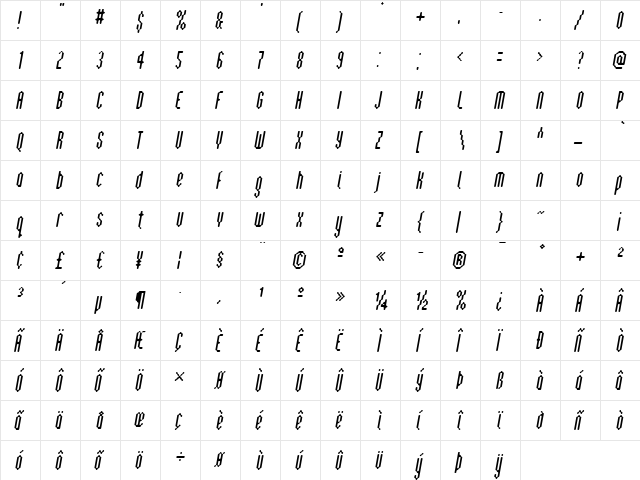
SB Byte Oblique
Design Context for SB Byte Typeface
SB Byte offers clean, dependable letterforms without strong stylistic allegiance, making it a practical choice for designers who need flexibility. The slanted form adds forward momentum and visual energy.
Pro Tip: Use SB Byte for emphasis, pull quotes, and subheadings where its slanted energy can add rhythm to the layout.